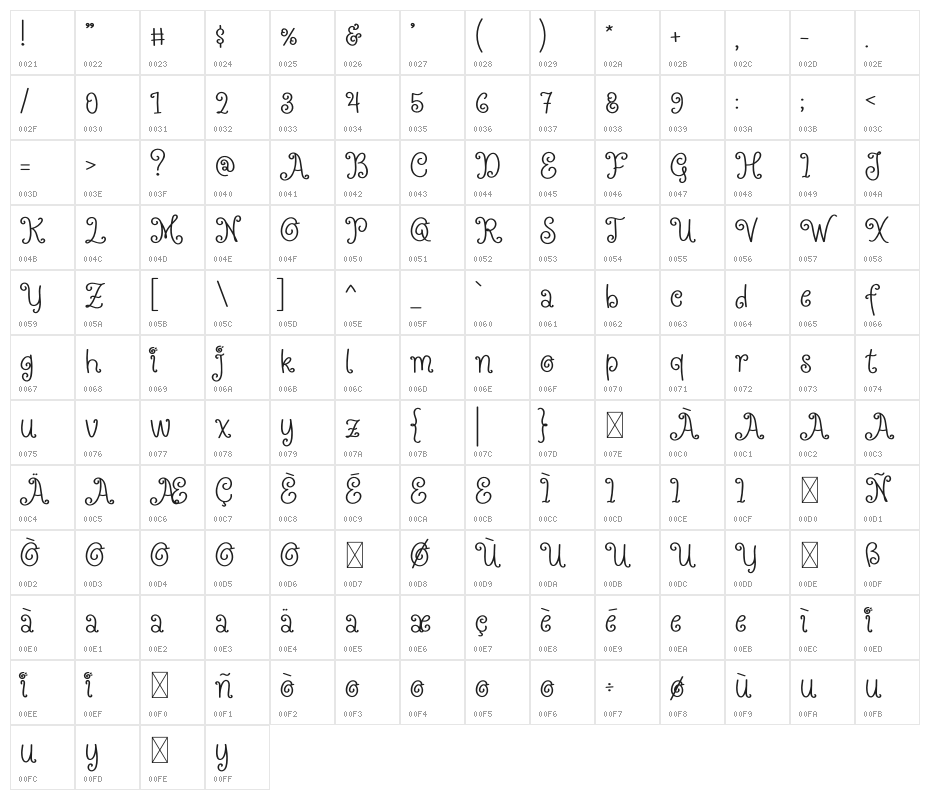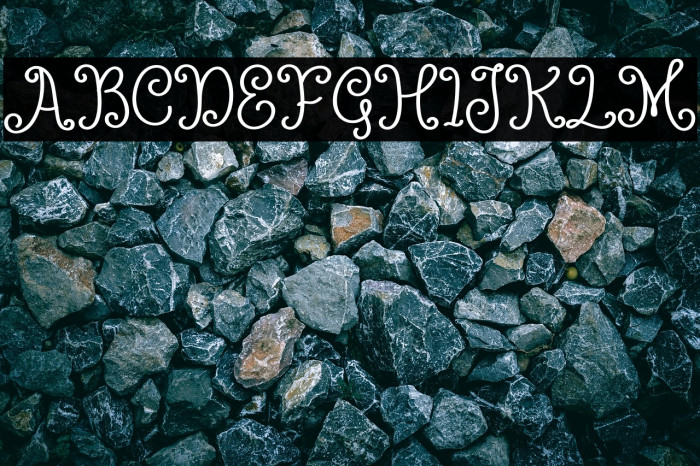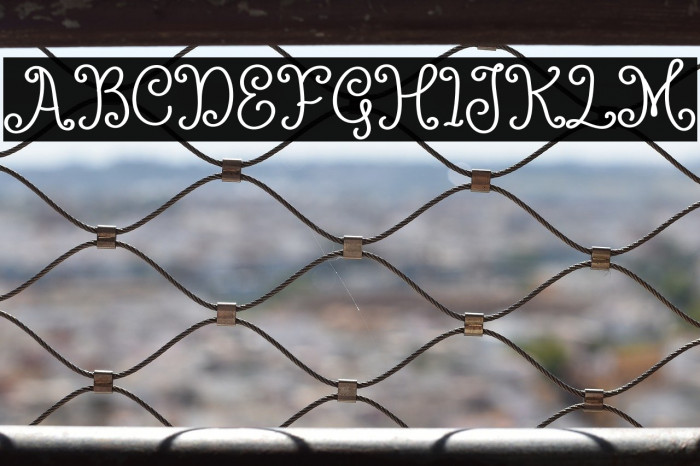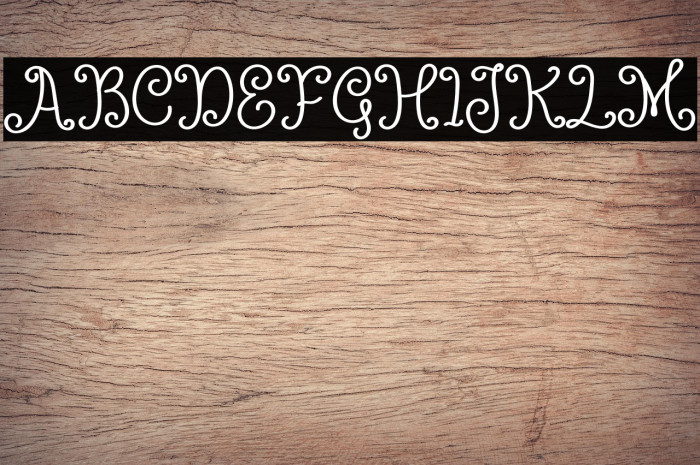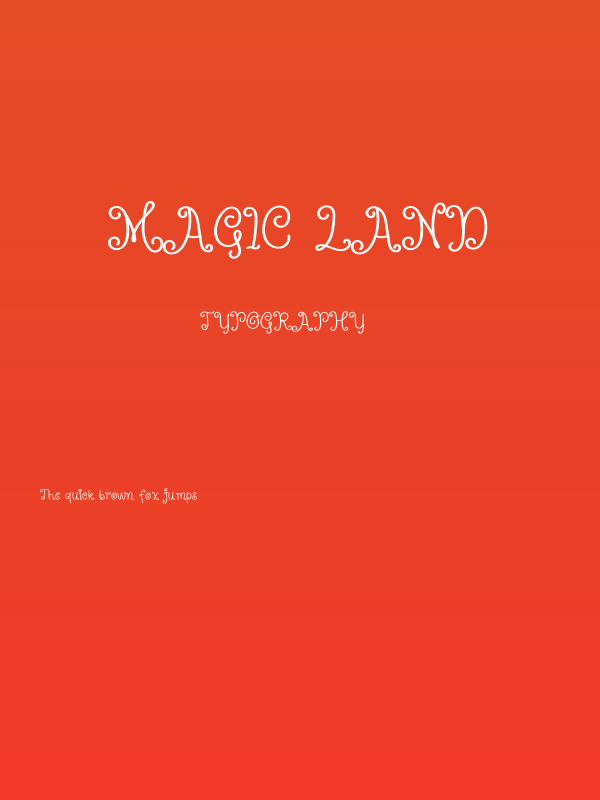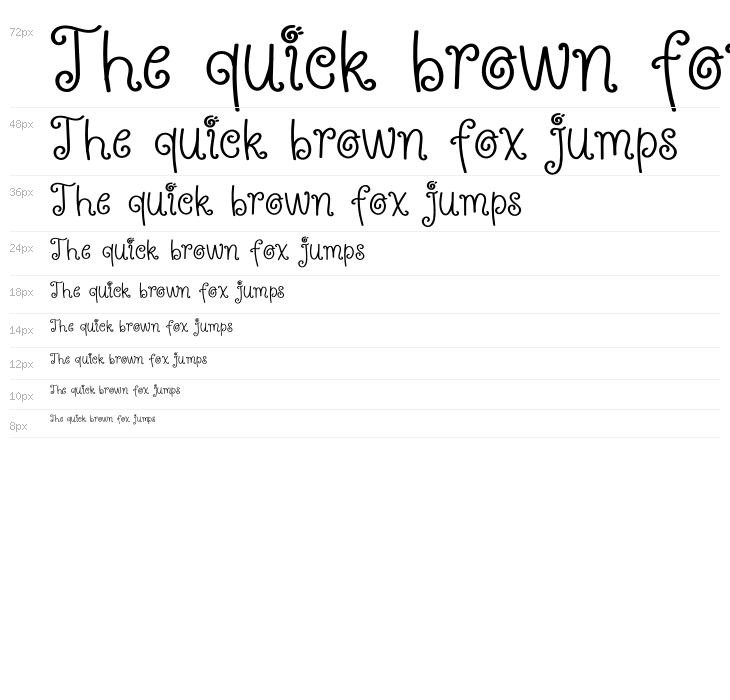
Magic Land Font
Magic Land Description
This whimsical and playful font features a decorative style with curly and swirling elements that give it a magical and enchanting appearance. The uppercase letters are adorned with intricate loops and curves, while the lowercase letters maintain a consistent flow with charming embellishments. The numerals and special characters continue this theme, adding a touch of fantasy and creativity. The font's unique design makes it ideal for projects that require a touch of whimsy and imagination, such as children's books, fantasy-themed invitations, or playful branding.
| Use Case | Headlines, Logos, Invitations |
| Proposed Projects | Ideal for children's books, fantasy-themed invitations, playful branding, and creative posters. |